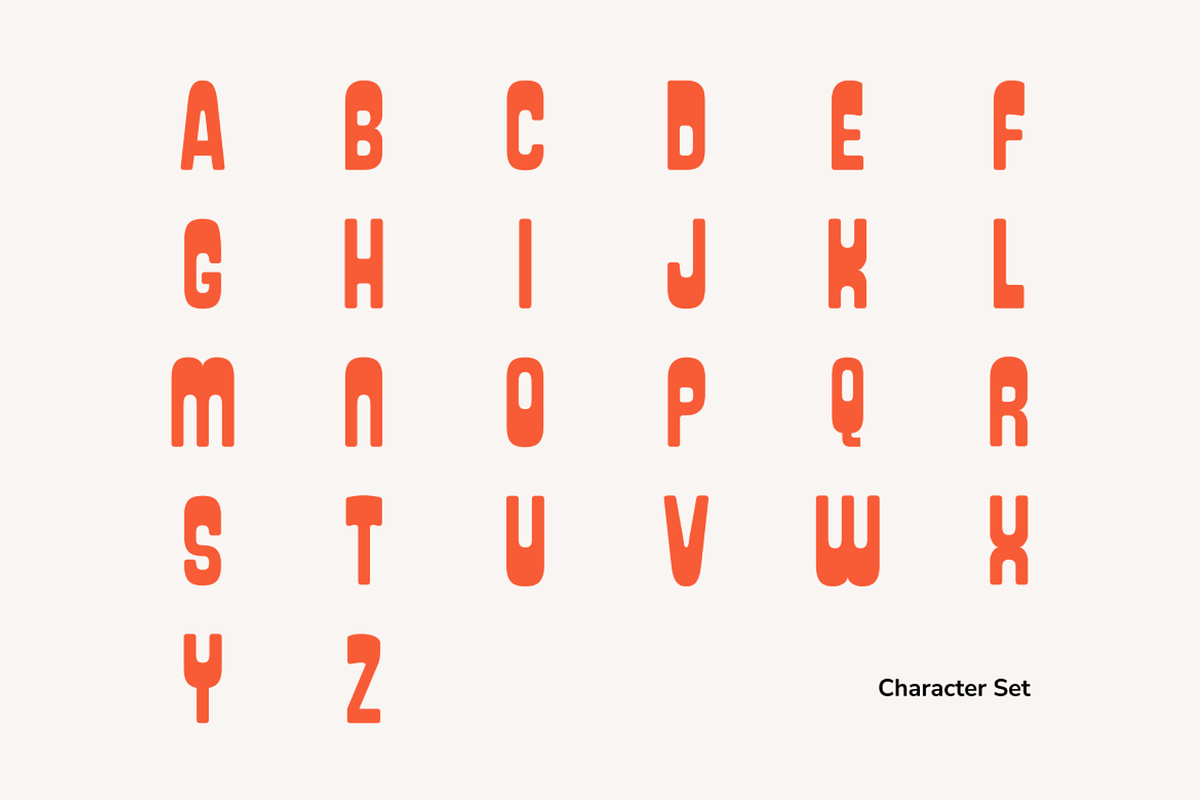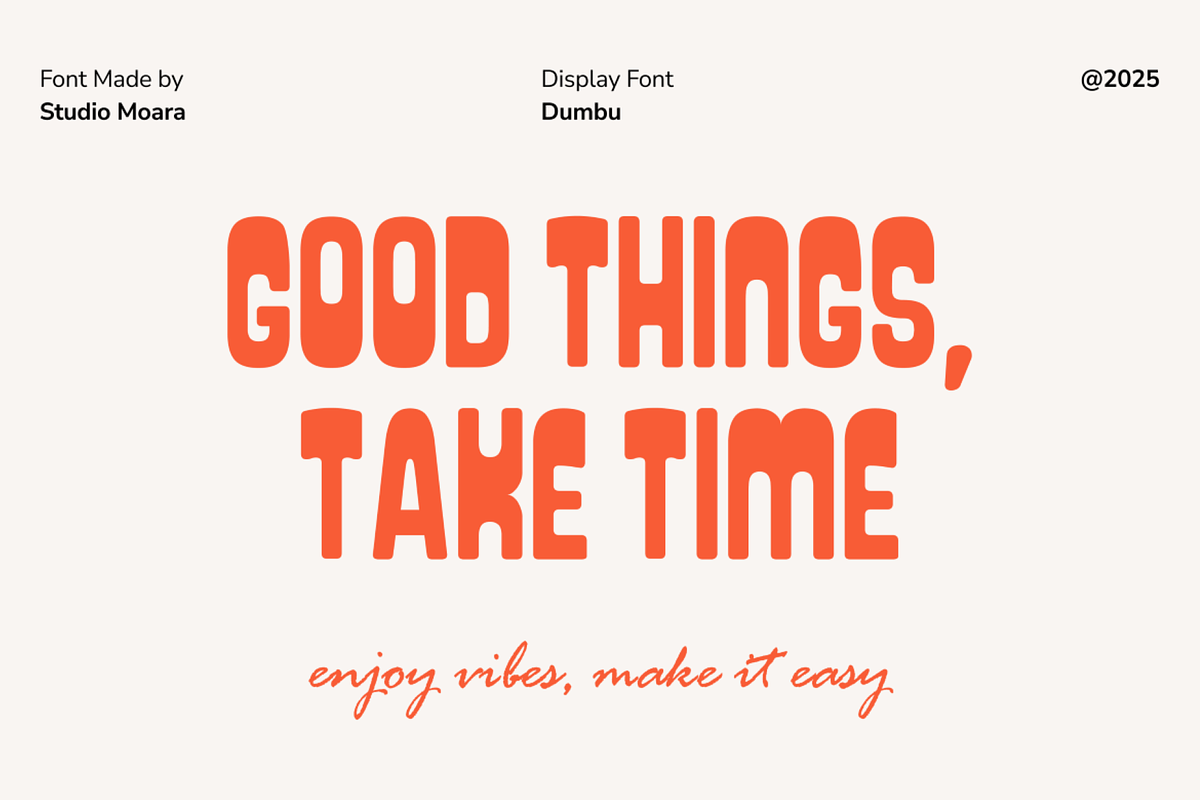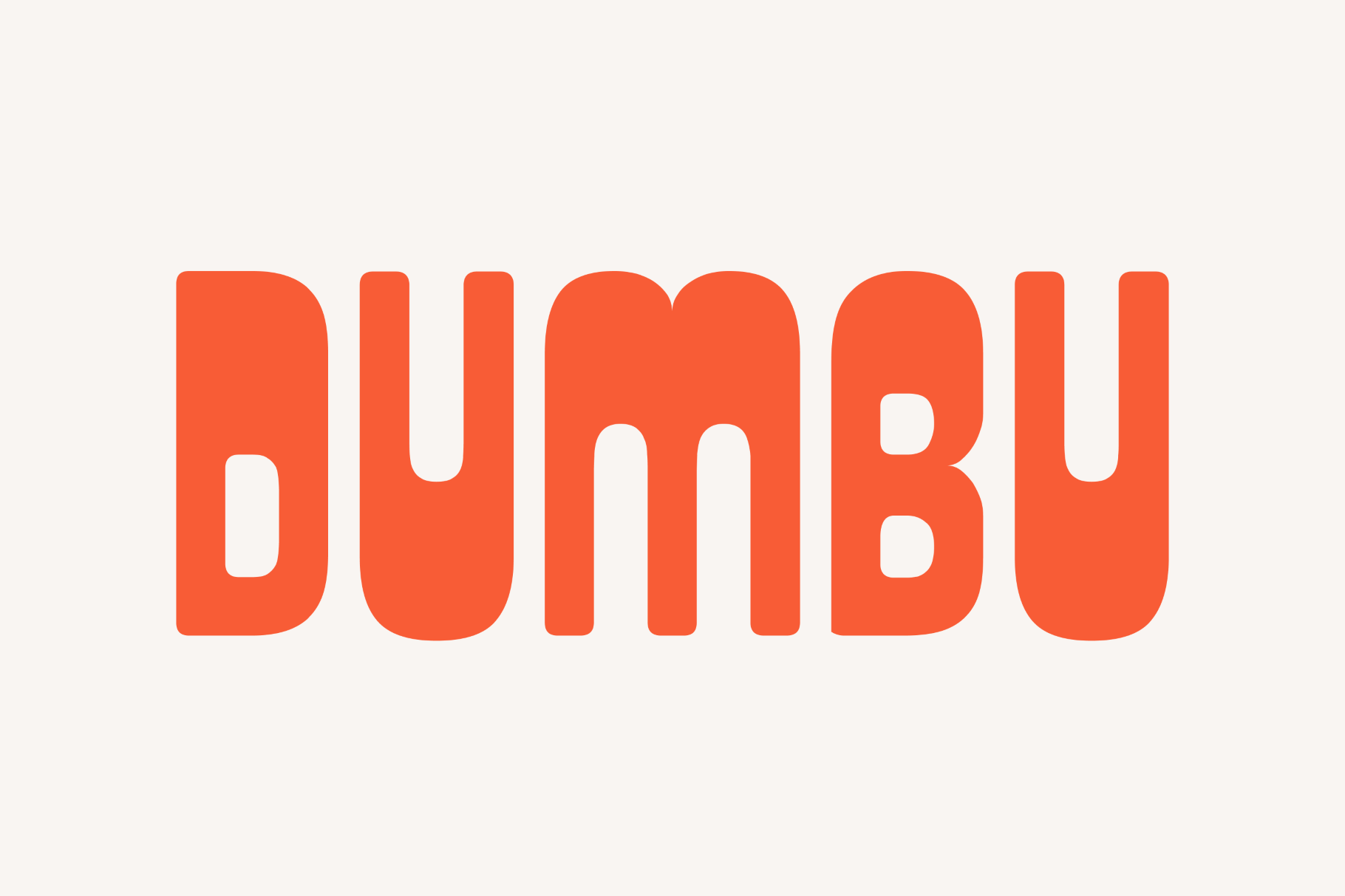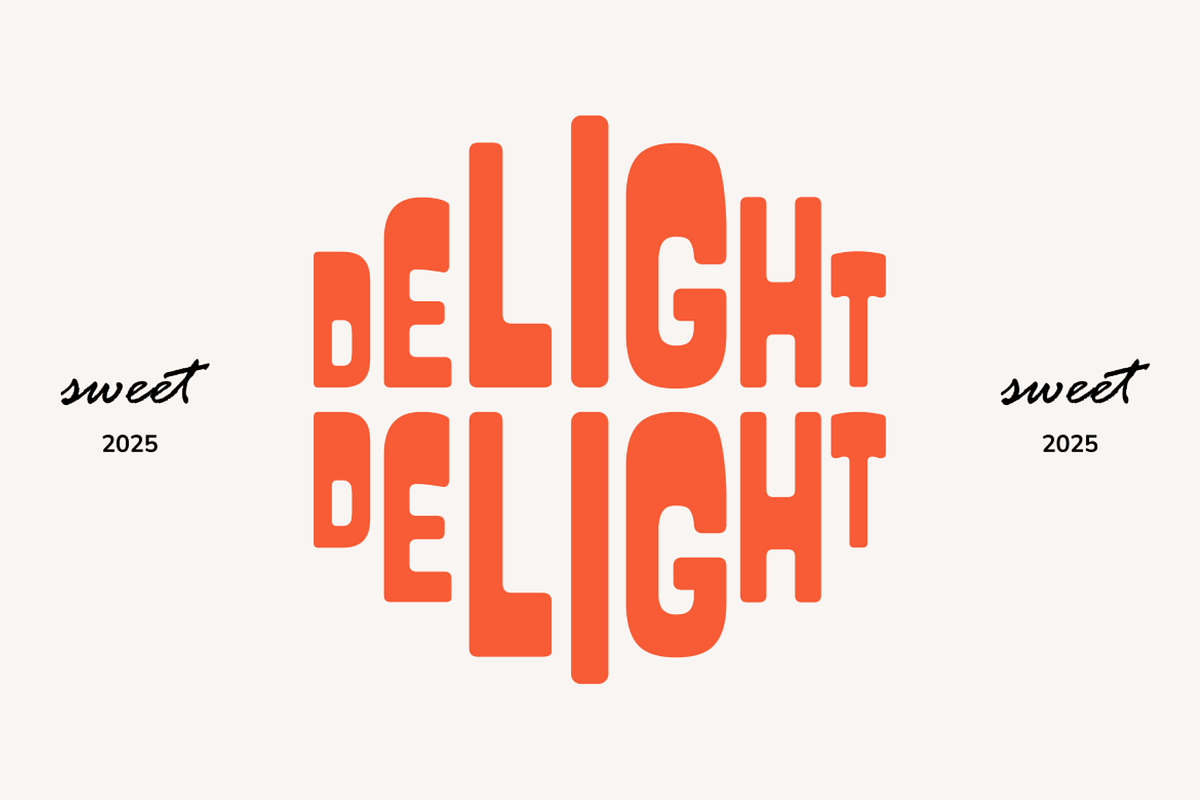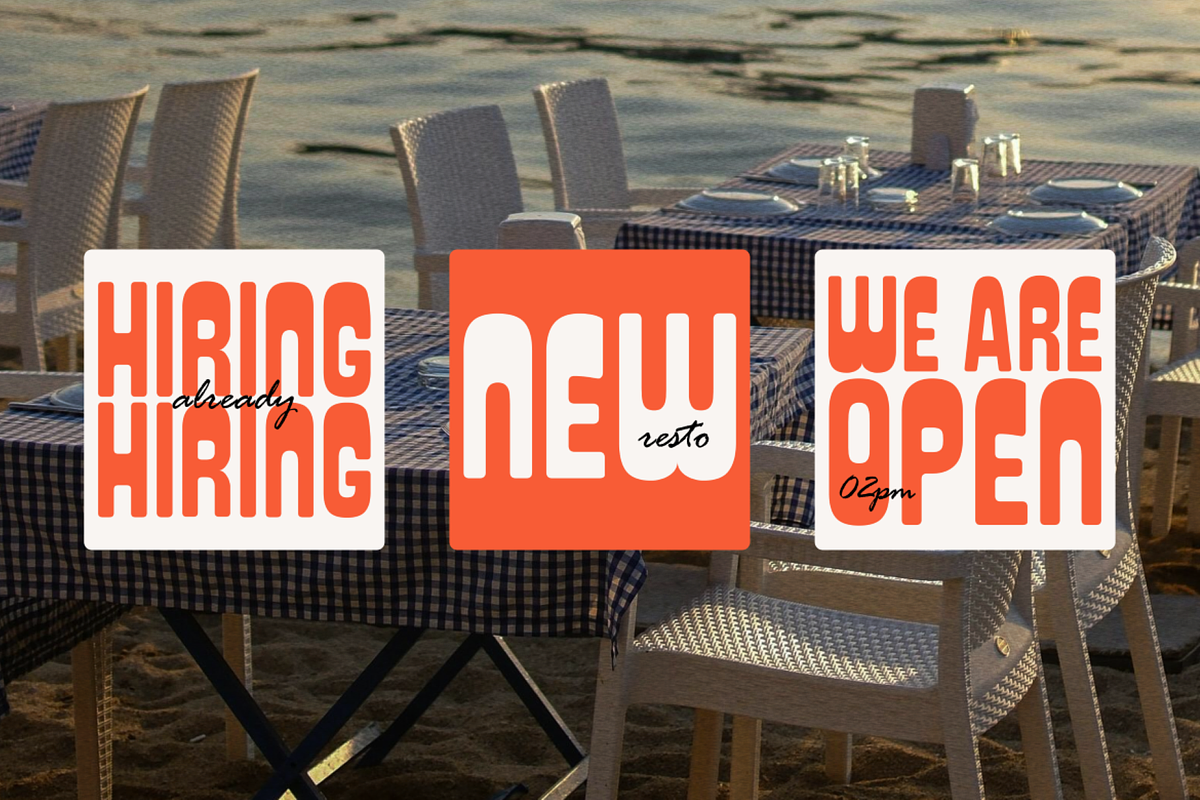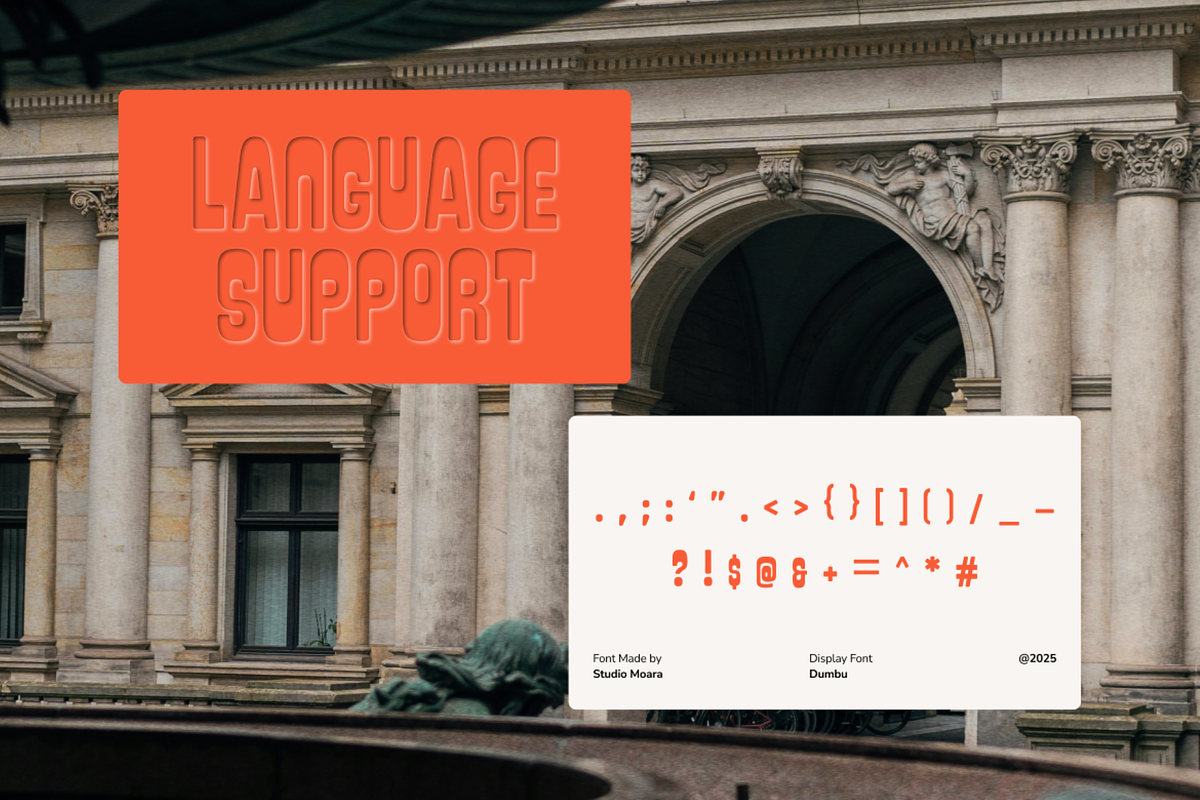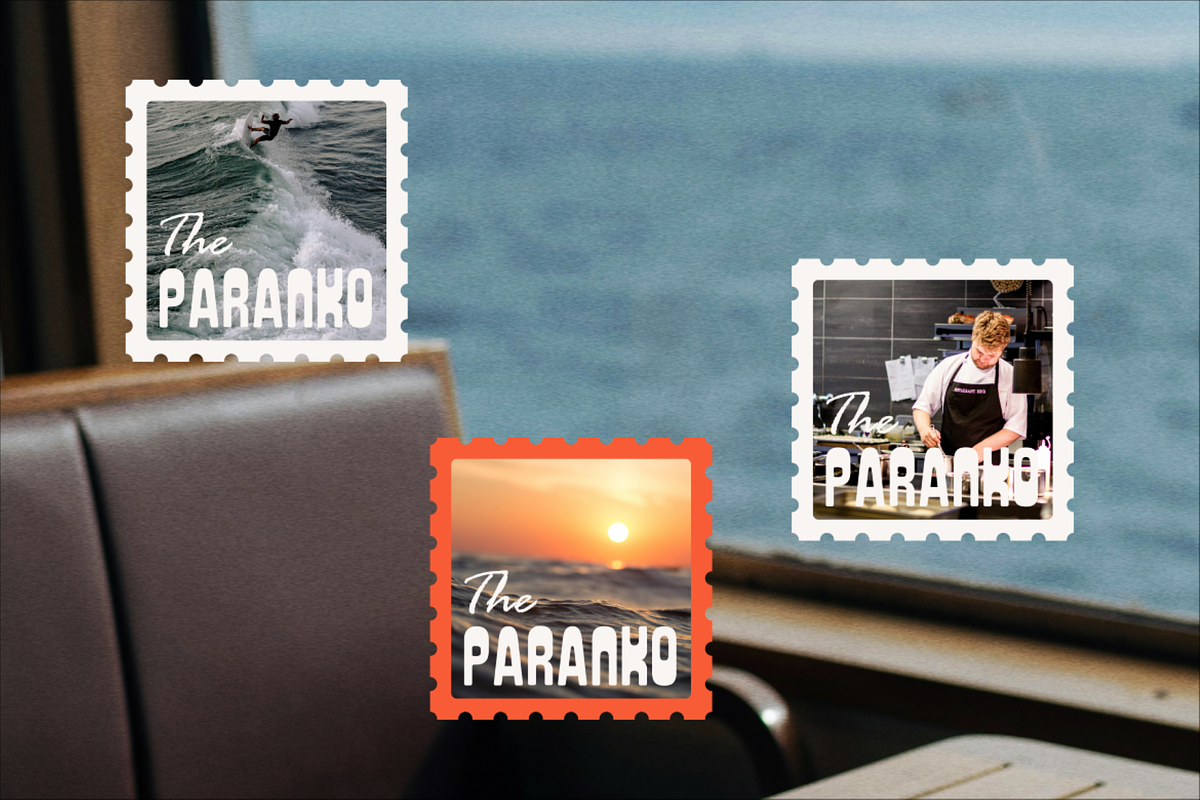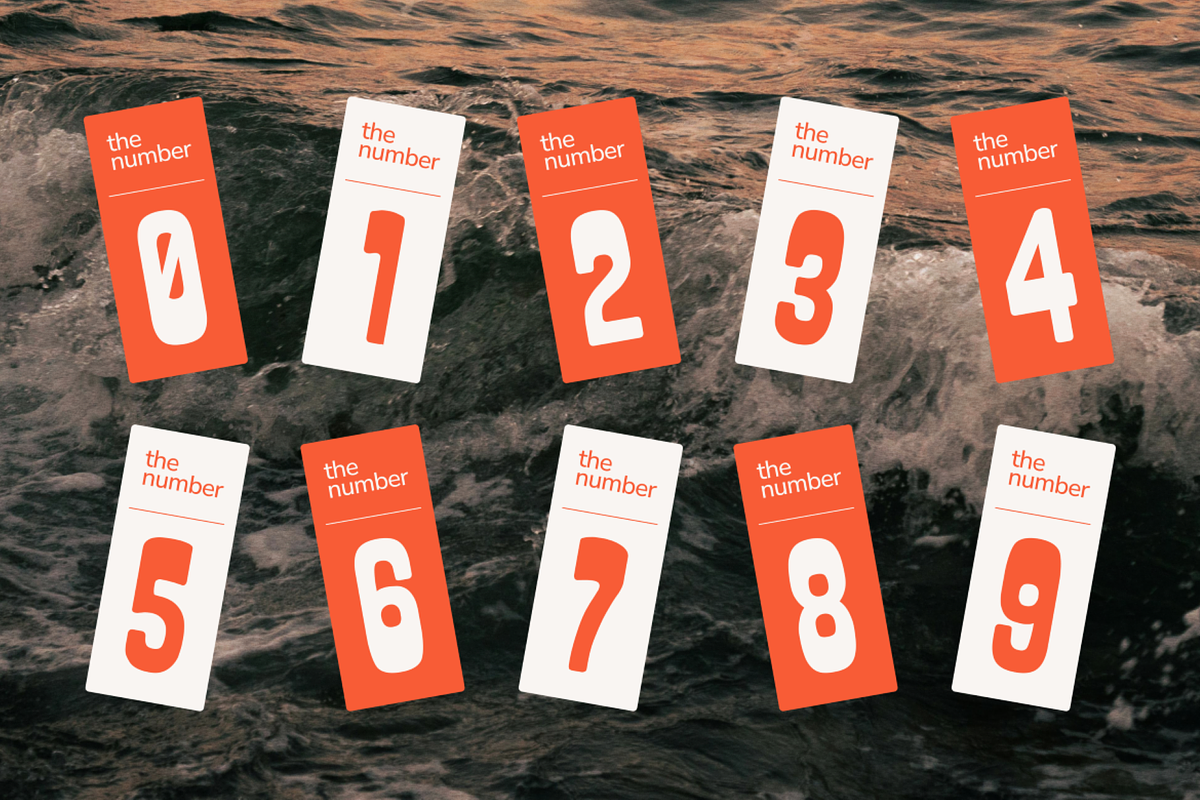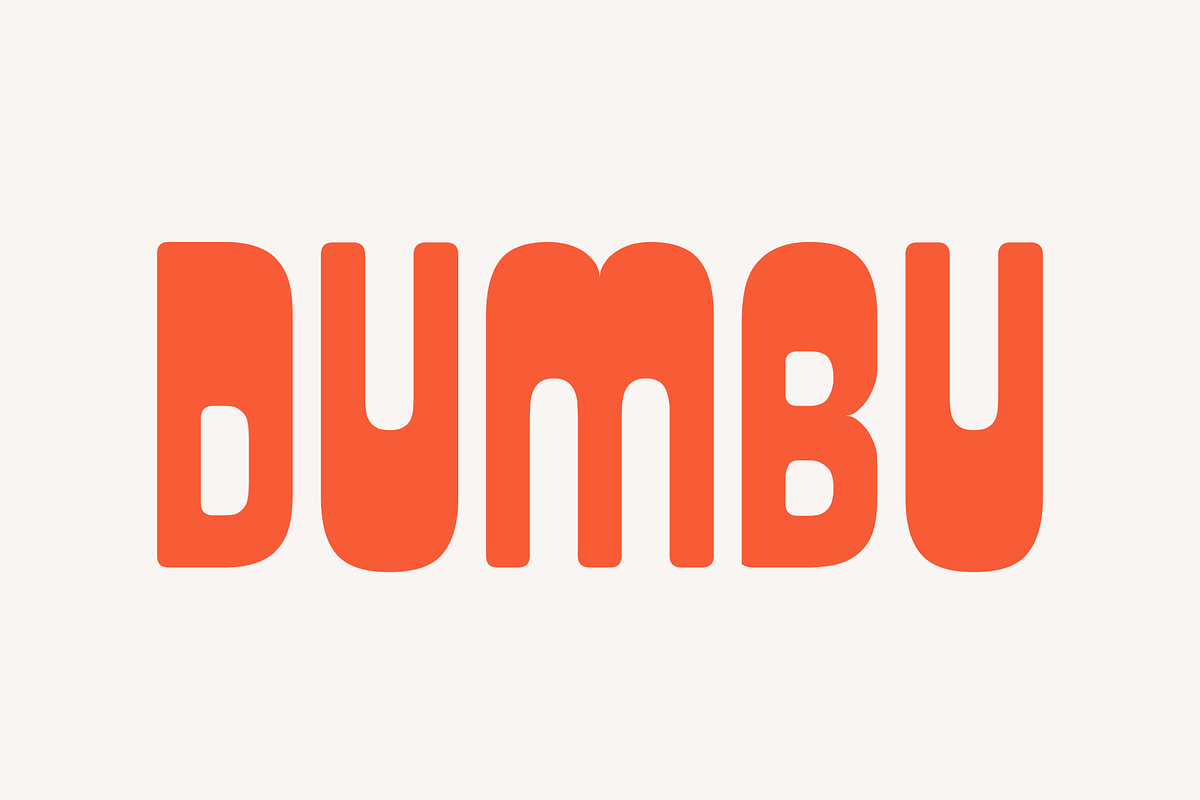
Dumbu - Display Font
Dumbu is a playful, bold display font with a quirky retro charm. Featuring chunky curves and tight spacing, it's perfect for logos, headlines, kids branding, and fun packaging. With a full uppercase set, Dumbu adds personality and punch to any creative project.